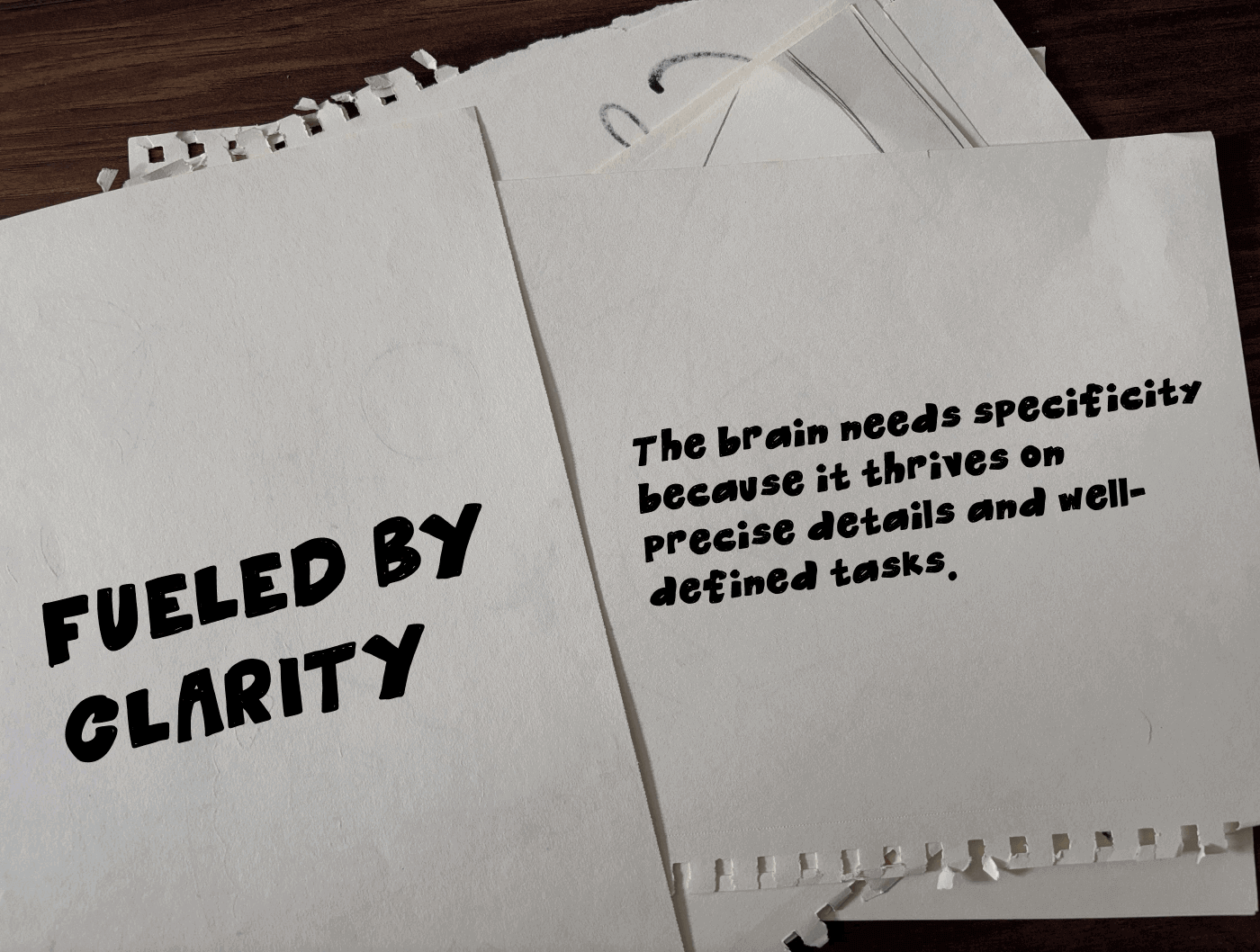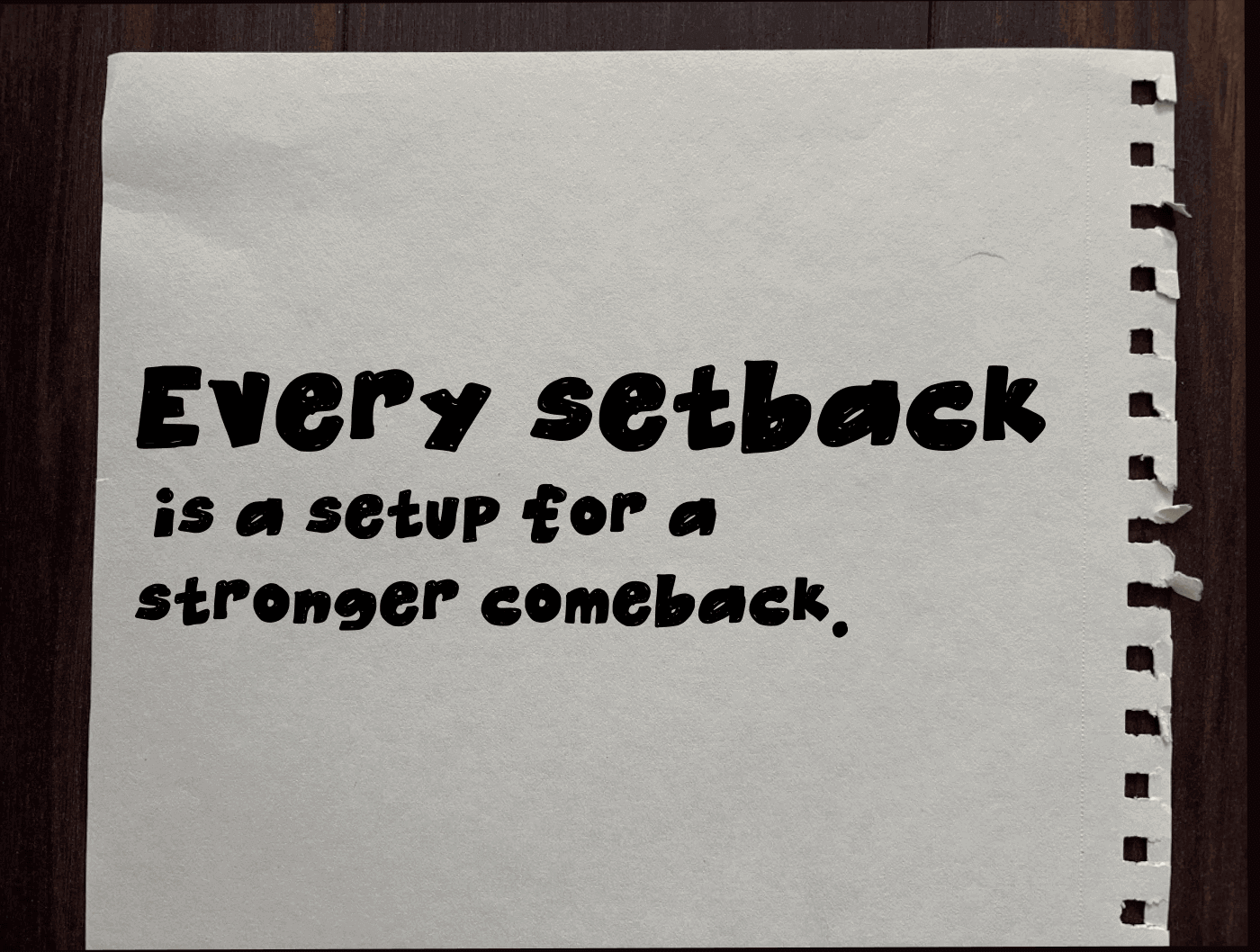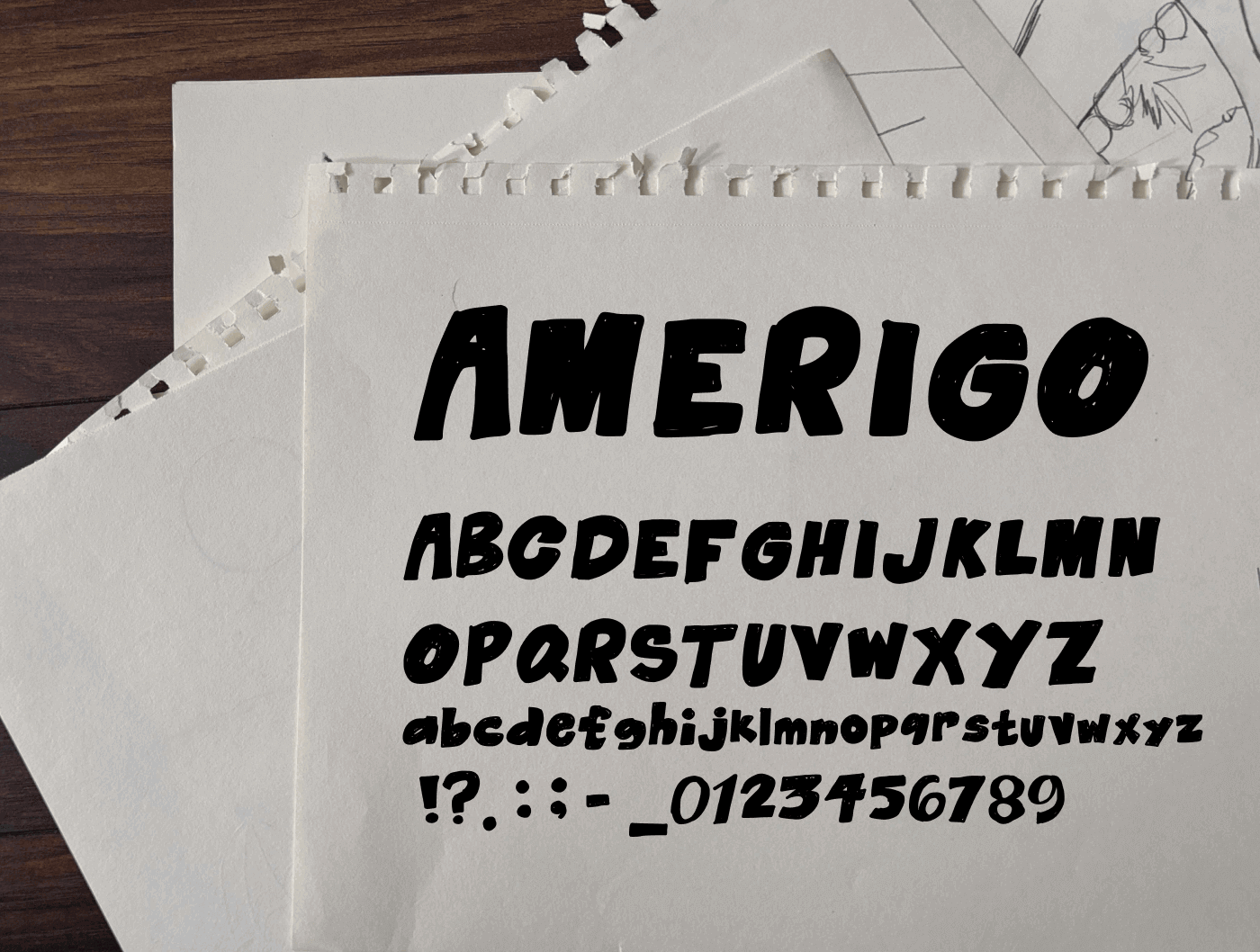
Amerigo handwritten font
What kind of font is Amerigo?
Amerigo is a bold hand-drawn brush font with chunky marker texture, made for expressive headlines, branding, social posts, and creative designs.
Does Amerigo include uppercase, lowercase, numbers, and punctuation?
Yes. Amerigo includes uppercase letters, lowercase letters, numbers, and common punctuation for everyday design use.